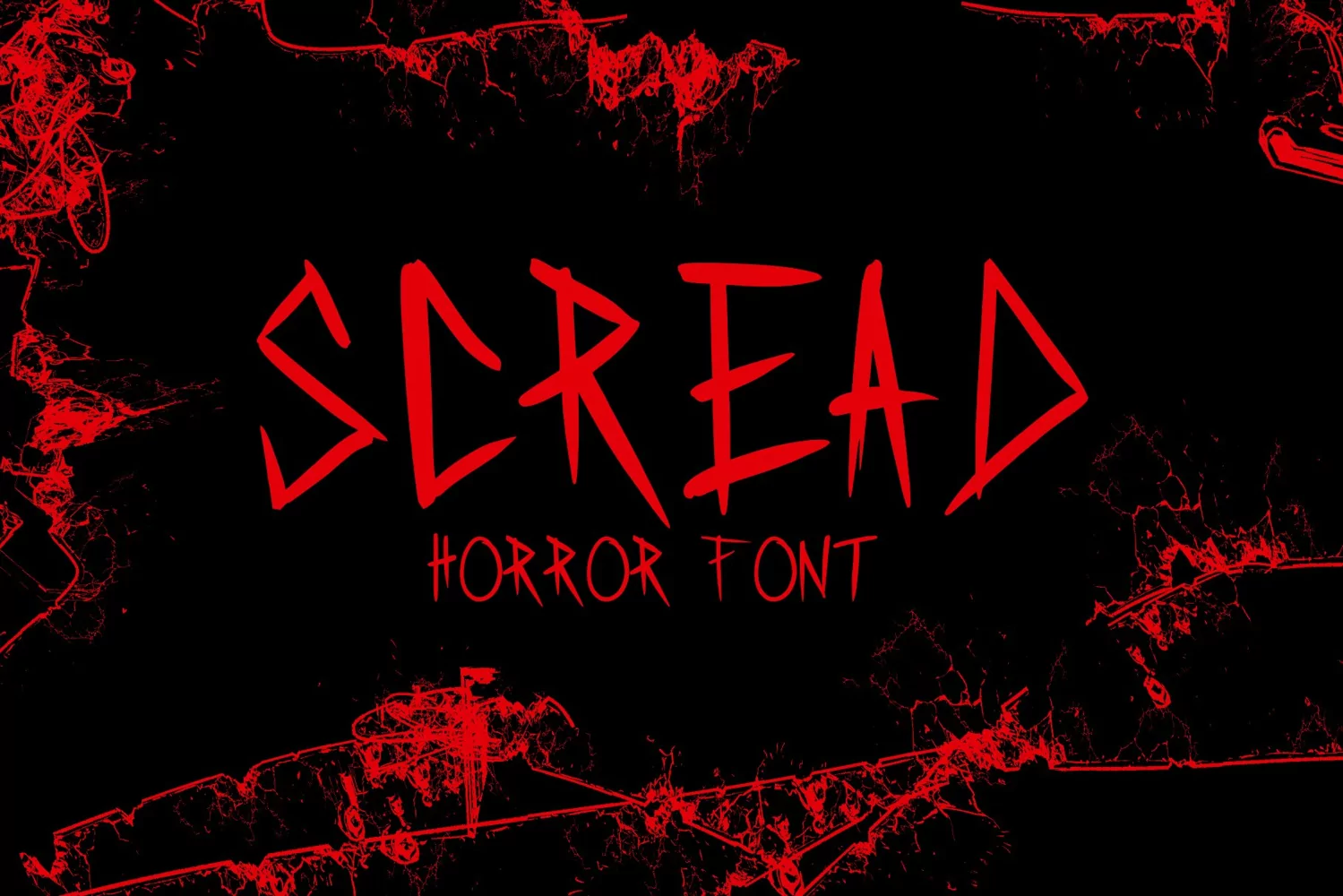
Scread - Horror, Thriller, Trash font
Scread is inspired by scars. It is a handmade display font inspired by horror and thriller works that look disorganized and scary but unique. The font is suitable for horror and thriller themes and makes your craft have a scary look. This font can be used in any project and become something awesome!